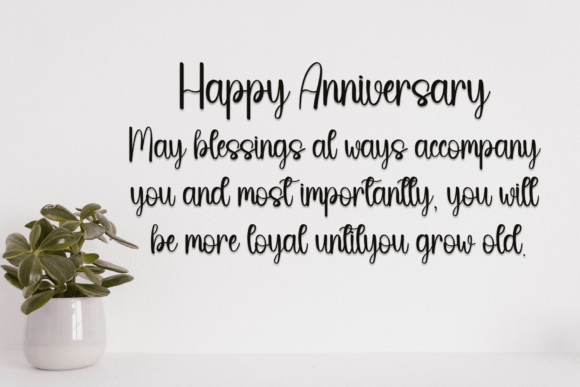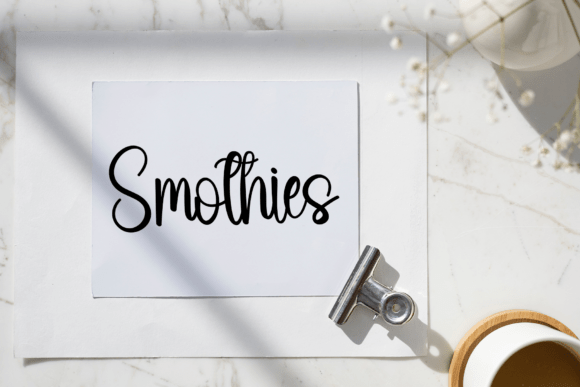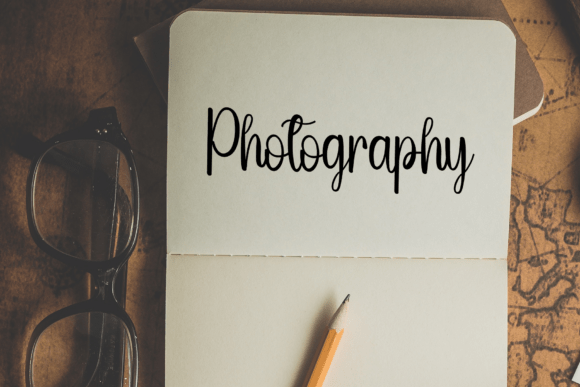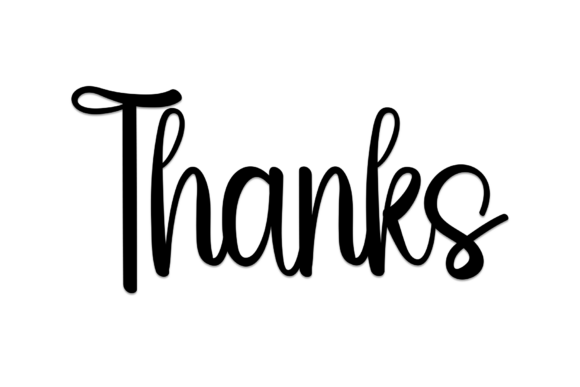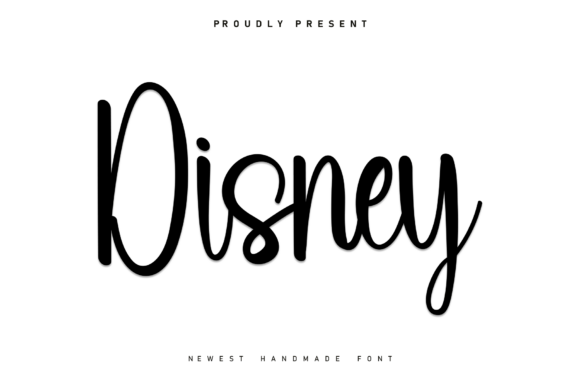
Introducing Disney Font: Elevate Your Designs with Elegance and Sophistication
Are you a designer or crafter looking for a font that embodies both elegance and contemporary charm? Look no further than the Disney Font. This stylish script font is designed to add a refined and sophisticated touch to any design, making it perfect for a wide range of applications, from logos and invitations to packaging and social media graphics.
The Beauty of Hand-Drawn Calligraphy with a Modern Twist
The Disney Font is inspired by the beauty of hand-drawn calligraphy, but with a modern twist. Its graceful strokes, fluid curves, and carefully crafted letterforms make it a true standout in the world of typography. The font’s natural flow and polished details give it a sense of luxury and sophistication, making it perfect for designers and crafters who want to add a touch of elegance to their work.
Key Features of the Disney Font
So, what makes the Disney Font so special? Here are just a few of its key features:
- Graceful Strokes: The Disney Font features smooth, flowing strokes that give it a sense of elegance and refinement.
- Fluid Curves: The font’s curves are carefully crafted to create a sense of natural flow and movement.
- Carefully Crafted Letterforms: Each letterform is meticulously designed to ensure that the font is both beautiful and legible.
- Modern Twist: The Disney Font takes traditional calligraphy and adds a modern twist, making it perfect for contemporary designs.
Uses for the Disney Font
The Disney Font is incredibly versatile, making it suitable for a wide range of design applications. Here are just a few ideas to get you started:
- Logos: The Disney Font is perfect for creating elegant and sophisticated logos that will help your brand stand out.
- Invitations: Add a touch of luxury to your invitations with the Disney Font, making them perfect for weddings, parties, and other special occasions.
- Packaging: The Disney Font is ideal for packaging designs that require a sense of elegance and refinement.
- Social Media Graphics: Use the Disney Font to create eye-catching social media graphics that will help your brand stand out.
Why Choose the Disney Font?
So, why should you choose the Disney Font for your next design project? Here are just a few reasons:
- Unique and Elegant: The Disney Font is a unique and elegant script font that will add a touch of sophistication to any design.
- Versatile: The font is incredibly versatile, making it suitable for a wide range of design applications.
- Easy to Read: Despite its elegant and refined appearance, the Disney Font is easy to read, making it perfect for body text and headlines.
- High-Quality: The Disney Font is a high-quality font that is designed to deliver exceptional results.
In conclusion, the Disney Font is a stylish script font that exudes elegance and contemporary charm. With its graceful strokes, fluid curves, and carefully crafted letterforms, it captures the beauty of hand-drawn calligraphy with a modern twist. Ideal for logos, invitations, packaging, and social media graphics, it adds a refined and sophisticated touch to any design. With its natural flow and polished details, this font delivers both versatility and visual appeal. So, why not give the Disney Font a try and see how it can elevate your designs?
Whether you’re a designer or crafter, the Disney Font is a must-have addition to your toolkit. Its unique blend of elegance and sophistication makes it perfect for a wide range of design applications, and its high-quality design ensures that it will deliver exceptional results every time.